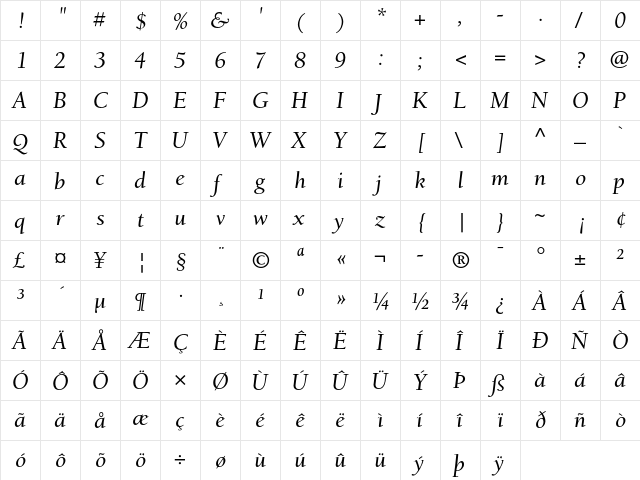
Berkeley Oldstyle Italic Font Preview
Berkeley Oldstyle Italic
Design Context for Berkeley Typeface
Berkeley brings classic typographic sensibility to the table — its serifs and measured letterforms reflect centuries of print heritage. The slanted form adds forward momentum and visual energy.
Pro Tip: Use Berkeley for editorial body copy and considered headline work. Pair with a neutral sans for UI elements or captions to create a classic hierarchy.